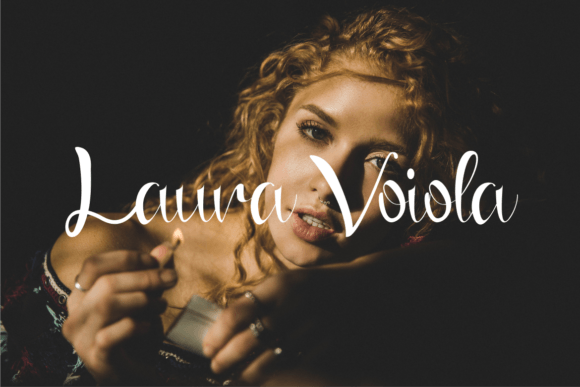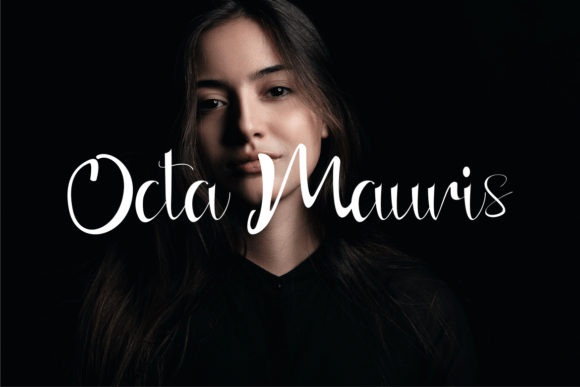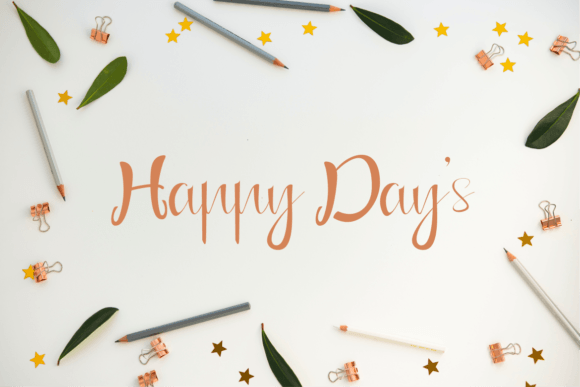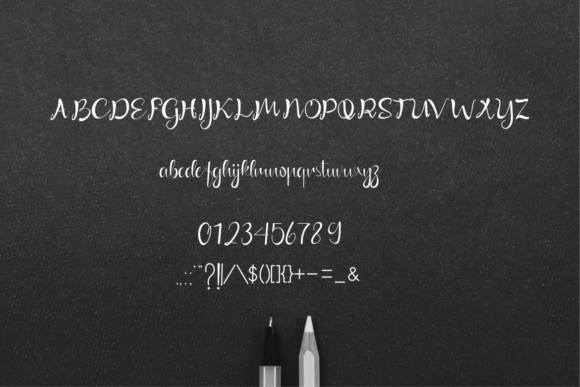
Coremantion Font: Elevate Your Designs with a Cool and Modern Handwritten Script
In the world of typography, fonts play a crucial role in conveying the tone and personality of a design. For designers and crafters looking to add a touch of elegance and sophistication to their creations, Coremantion Font is an excellent choice. This cool and modern handwritten script font has the potential to elevate any project, making it an incredible asset to your font library.
What Makes Coremantion Font Stand Out?
Coremantion Font boasts a unique and stylish design that sets it apart from other fonts. Its handwritten script style gives it a personal and approachable feel, making it perfect for a wide range of applications, from branding and advertising to packaging and digital media. The font’s modern aesthetic ensures that it will appeal to design enthusiasts and professionals alike.
Key Features of Coremantion Font
- Handwritten Script Style: Coremantion Font features a beautiful, handwritten script style that adds a touch of elegance to any design.
- Modern Aesthetic: The font’s modern design ensures that it will fit in seamlessly with contemporary design trends.
- Versatile: Coremantion Font can be used for a wide range of applications, from digital media to print materials.
- Easy to Read: The font’s clear and legible design makes it easy to read, even at smaller sizes.
How to Use Coremantion Font in Your Designs
Coremantion Font can be used in a variety of design projects, including:
- Branding and Advertising: Use Coremantion Font to create eye-catching logos, advertisements, and marketing materials that will help your brand stand out.
- Digital Media: Add a touch of elegance to your website, social media graphics, or digital publications with Coremantion Font.
- Packaging: Use Coremantion Font to create beautiful and eye-catching packaging designs that will help your product stand out on store shelves.
- Stationery and Invitations: Add a personal touch to your stationery, invitations, and greeting cards with Coremantion Font.
Tips for Getting the Most Out of Coremantion Font
To get the most out of Coremantion Font, here are a few tips to keep in mind:
- Experiment with Different Sizes: Coremantion Font looks great at a variety of sizes, so don’t be afraid to experiment to find the perfect size for your design.
- Pair it with Other Fonts: Coremantion Font pairs well with a variety of other fonts, so try combining it with different fonts to create a unique look.
- Use it to Add Emphasis: Coremantion Font is perfect for adding emphasis to certain words or phrases in your design.
Coremantion Font is a cool and modern handwritten script font that has the potential to elevate any design. With its unique and stylish design, versatile applications, and easy-to-read style, it’s an excellent addition to any font library. Whether you’re a designer, crafter, or simply someone looking to add a touch of elegance to your projects, Coremantion Font is definitely worth checking out.